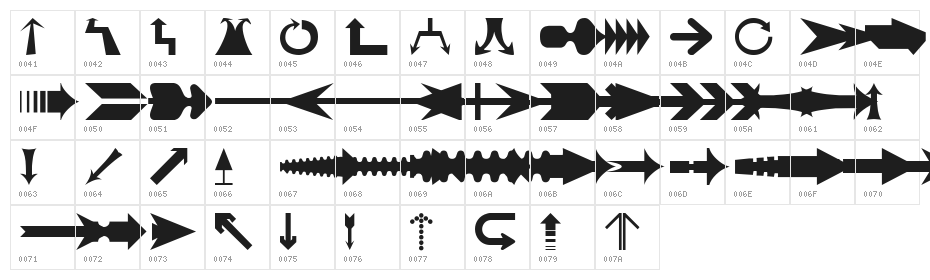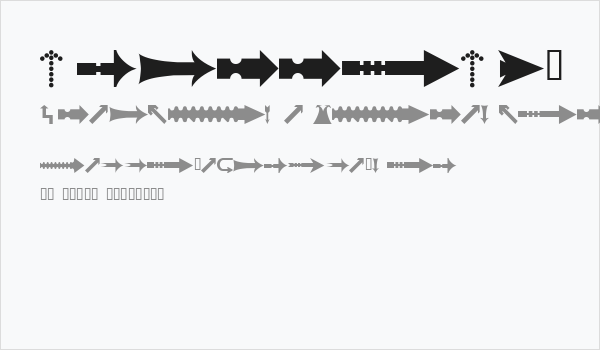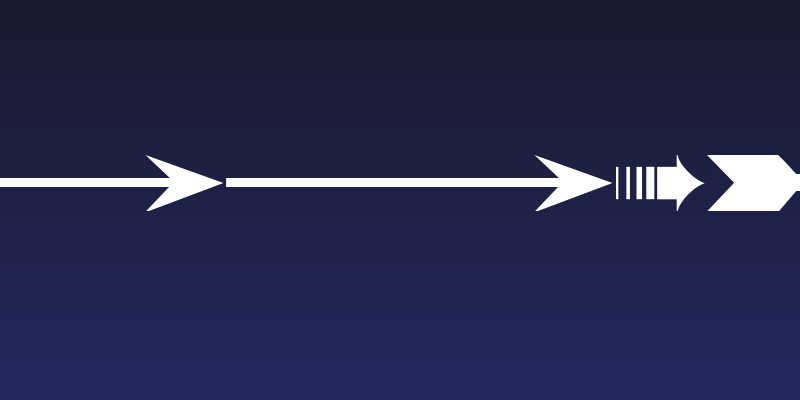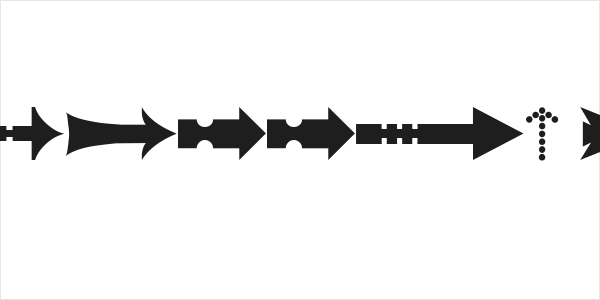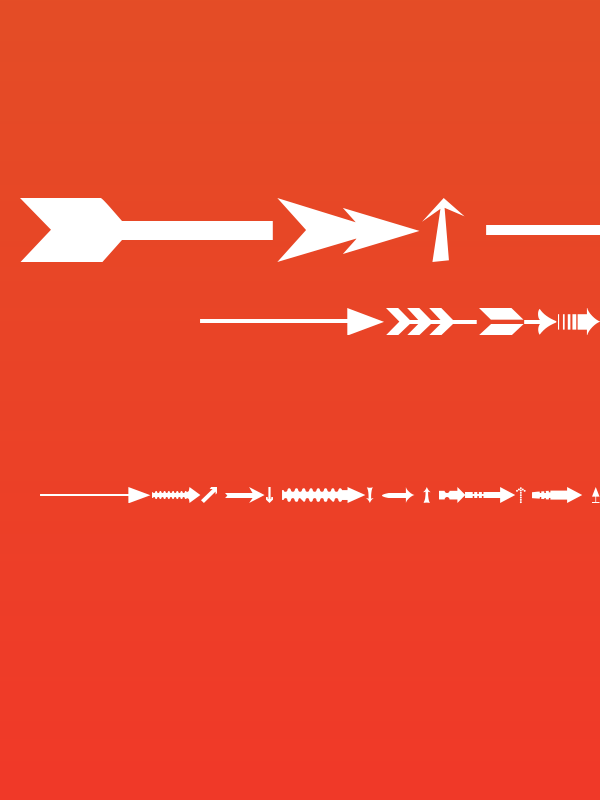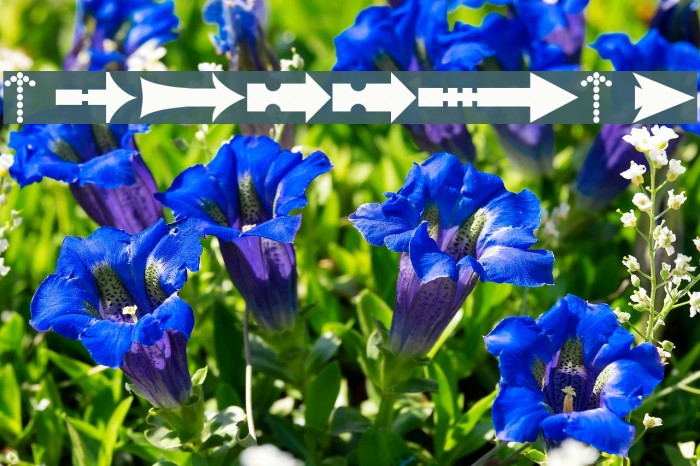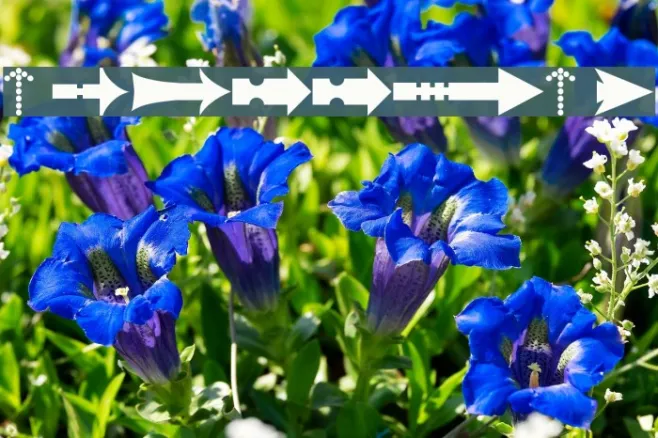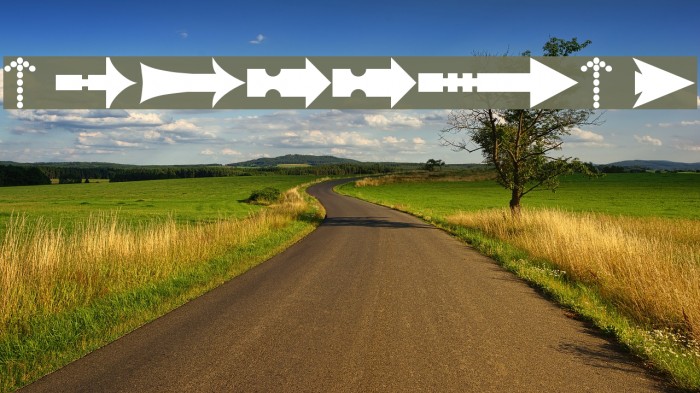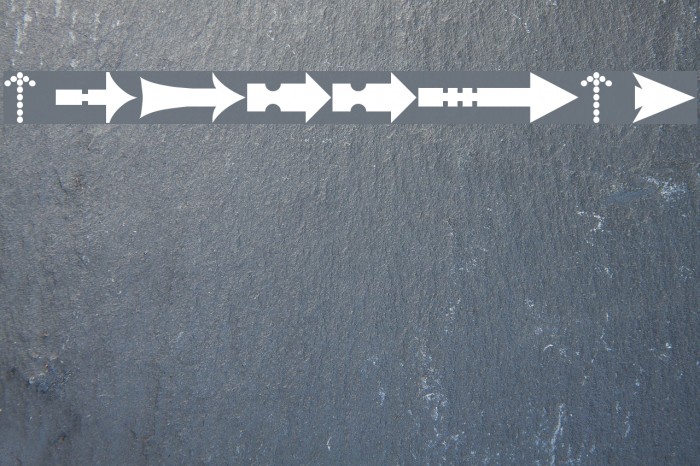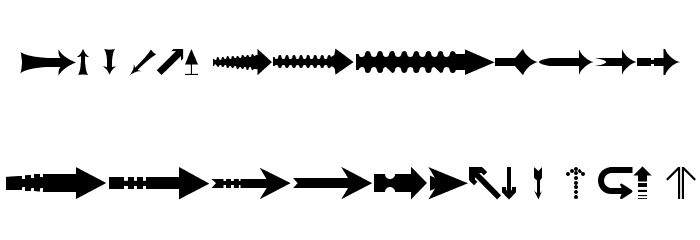
wmarrows1 Font
wmarrows1 Description
A decorative dingbat font featuring a wide variety of arrow designs, including straight, curved, segmented, and stylized arrows, as well as outlined rectangular shapes for lowercase and numbers. The arrows range from simple to highly ornamental, with some incorporating geometric and abstract elements.
| Overall Style | Decorative, Modern |
| Use Case | Icons, Symbols, Decorative elements |
| Proposed Projects | Infographics, signage, instructional materials, presentations, creative design projects, and user interface elements. |